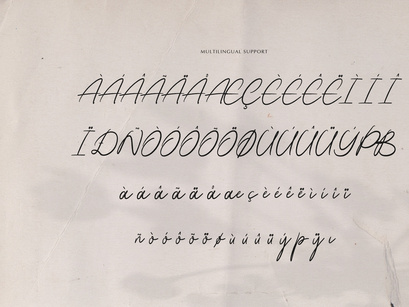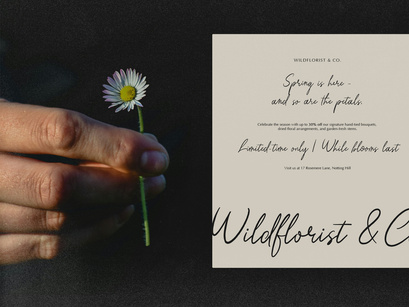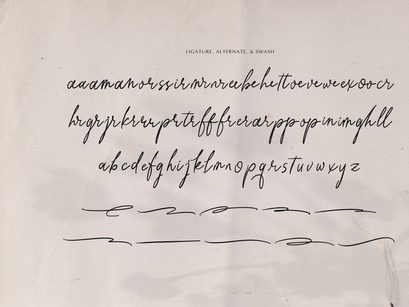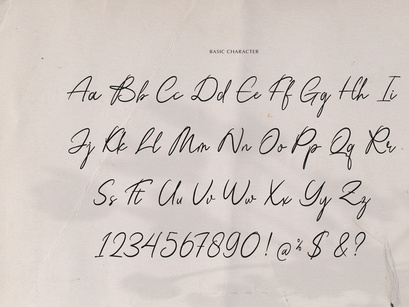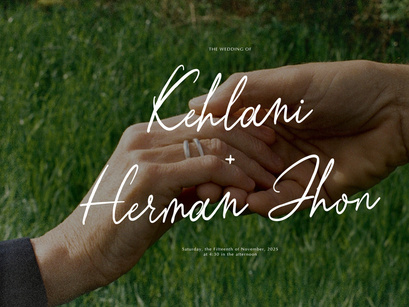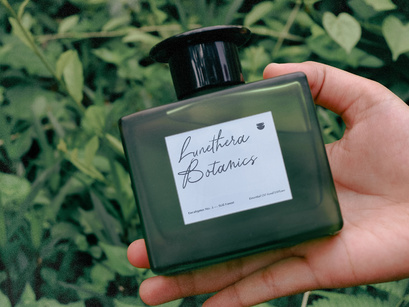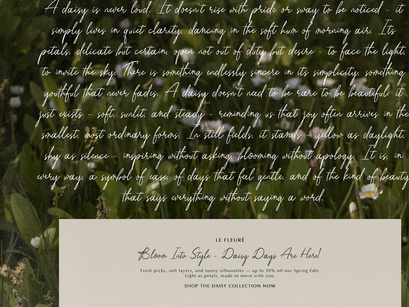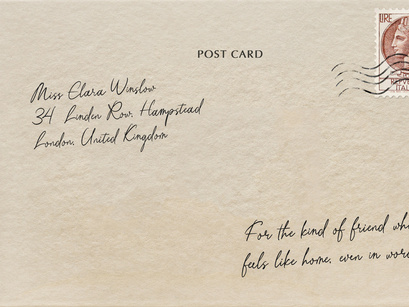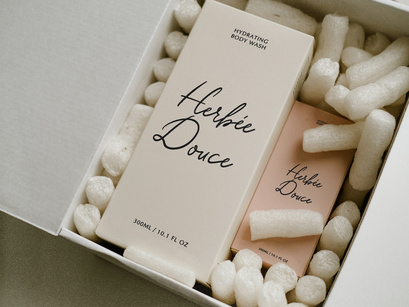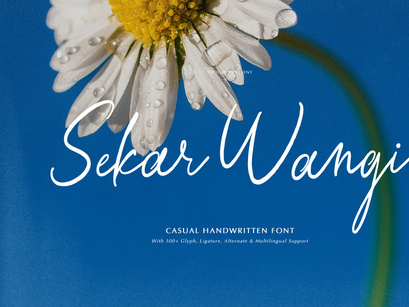
Sekar Wangi | Casual Handwritten Font
Sekar Wangi | Casual Handwritten Font, from Gracetypestudio, suitable for any projects such as: logos, branding projects, homeware designs, product packaging, mugs, quotes, posters, shopping bags, t-shirts, book covers, name card, invitation cards, greeting cards, label, photography, watermark, special events, and all your other lovely projects that need a Casual Handwritten Font taste.